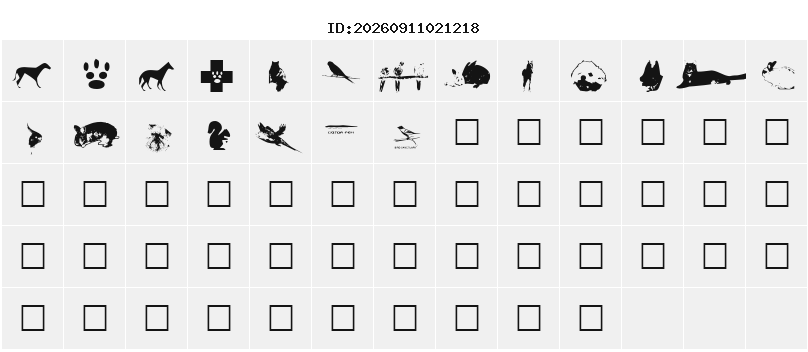
Vetrinarian Preview
• Font Name: Vetrinarian
• Font Style: bats
• Font ID: Alts:Vetrinarian bats
• Full Font Name: Vetrinarian bats
• PostScript Name: Vetrinarian-bats
• Character Count: 22
About Vetrinarian.ttf